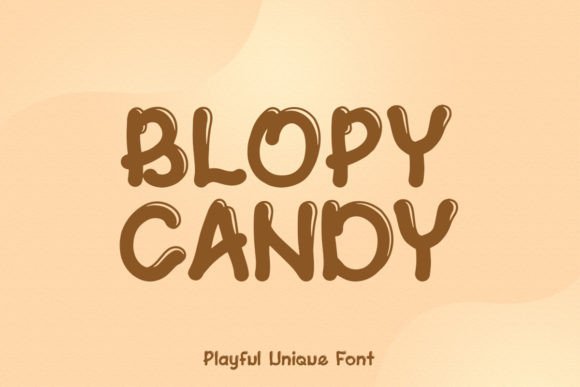
The Sweet Spot: Discovering Blopy Candy Font
I’ll never forget the time I was working on a fun project for a kids’ party invitation. I had all the design elements ready – the colors, the graphics, the overall vibe – but something was missing. The font I was using just wasn’t doing it for me. It was too serious, too boring. I needed something that would capture the playful spirit of the party. That’s when I stumbled upon Blopy Candy Font.
It was love at first sight! The whimsical, quirky letters immediately caught my attention. I knew right then and there that Blopy Candy was the perfect fit for my project. And, as it turned out, it was just what I needed to take my design to the next level.
What I Love About Blopy Candy ✨
• ✅ Playful and Whimsical: Blopy Candy is the epitome of fun and playfulness. Its unique letterforms are sure to add a touch of whimsy to any design.
• ✅ Versatile: Despite its playful nature, Blopy Candy is surprisingly versatile. It can be used for a wide range of projects, from kids’ party invitations to branding and packaging.
• ✅ Easy to Read: One of the things I love about Blopy Candy is that it’s actually quite easy to read, despite its quirky design. This makes it perfect for headlines, titles, and short paragraphs of text.
• ⚠️ Limited Use for Body Text: While Blopy Candy is great for headlines and titles, it’s not the best choice for body text. Its playful nature can be distracting when used for longer blocks of text.
• ⚠️ May Not Suit All Brands: Blopy Candy is a very distinctive font, and it may not be suitable for all brands or projects. It’s perfect for fun, playful brands, but may not work as well for more serious or corporate brands.
The Story Behind Blopy Candy
Blopy Candy was designed by a team of creatives who wanted to create a font that would bring a smile to people’s faces. They were inspired by the world of candy and sweets, and wanted to capture the playful, whimsical spirit of these treats in a font.
The design process involved a lot of experimentation and play, with the team trying out different letterforms and styles until they landed on the perfect combination. The result is a font that’s both fun and functional, perfect for adding a touch of whimsy to any design.